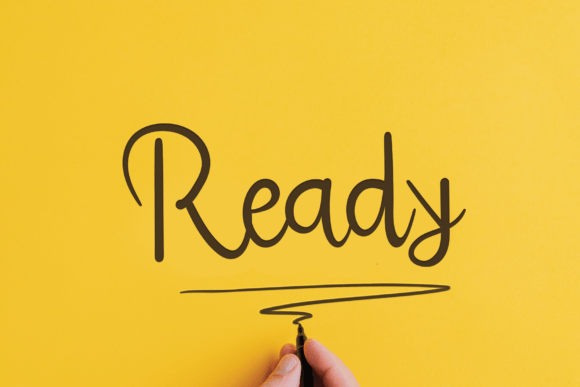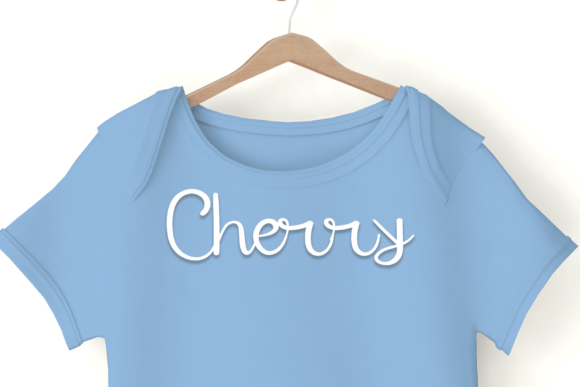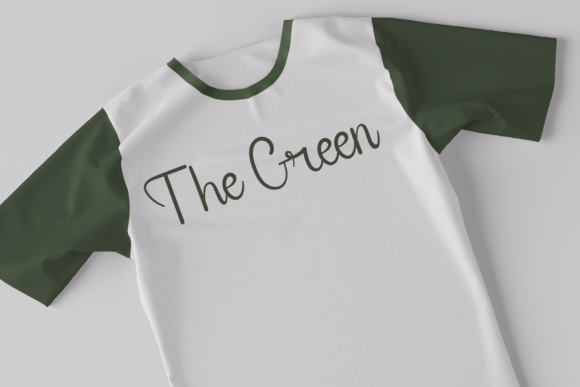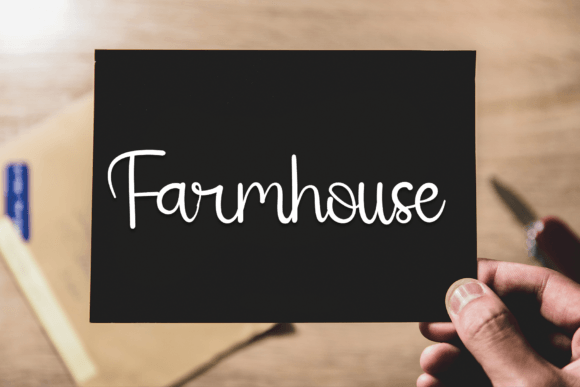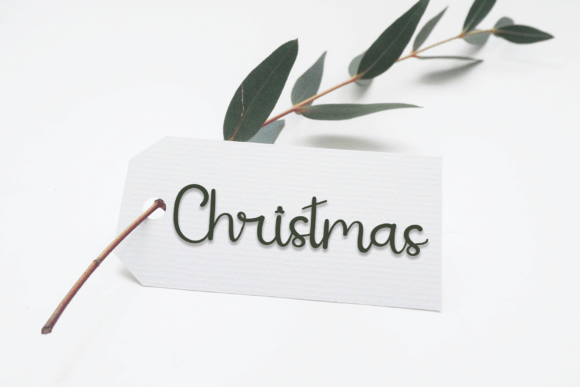
Ready Font
About Ready Font
The Ready Font Download is a sweet and smooth handwritten typeface designed to bring charm, warmth, and playfulness to your creative work. Its carefully crafted strokes mimic the flow of natural handwriting, giving each letter a personal, romantic quality. This makes the font not only eye-catching but also emotionally engaging, a perfect choice for projects that need to connect on a personal level.
Soft, flowing lines combined with a friendly style make Ready Font versatile and approachable. Whether you are designing wedding invitations, greeting cards, or branding for handmade products, this font delivers the right balance of sweetness and professionalism.
Features of Ready Font
When you choose the Ready Font Download, you receive a typeface with features that are both functional and inspiring:
• Smooth handwritten script with a natural look
• Full uppercase and lowercase sets
• Punctuation, numbers, and symbols included
• PUA-encoded for easy access to special characters
• Multilingual support for global design needs
These features ensure that the font is as practical as it is stylish.
Best Uses for Ready Font
The Ready Font Download is suitable for a wide range of creative applications. Some of the most popular uses include:
• Wedding Invitations – Capture romance and elegance with soft, handwritten strokes.
• Greeting Cards – Perfect for birthdays, holidays, and heartfelt messages.
• Branding Projects – Adds a personal touch to logos, boutique branding, and product packaging.
• DIY Crafts – Stylish text for T-shirts, mugs, tote bags, and stickers.
• Social Media Graphics – Make posts stand out with a playful and authentic typeface.
• Posters and Flyers – Great for event promotion, seasonal sales, or inspirational quotes.
Because of its versatility, the Ready Font works equally well in digital and print formats.
Why Choose Ready Font?
Opting for the Ready Font Download means adding a font that combines beauty with practicality. Designers value it because it feels approachable yet elegant, offering flexibility for a wide range of creative needs.
Unlike generic fonts, Ready provides a sense of authenticity. Its playful curves and smooth flow make it suitable for both personal and professional projects. Whether you’re creating wedding stationery or branding a small business, this font ensures your designs remain stylish and engaging.
The Ready Font Download is more than just a typeface—it’s a design tool that adds personality, warmth, and charm to your projects. Its smooth handwritten style makes it a favorite among designers, crafters, and anyone who wants their work to stand out. From invitations to logos and beyond, Ready Font will quickly become a go-to choice in your collection.